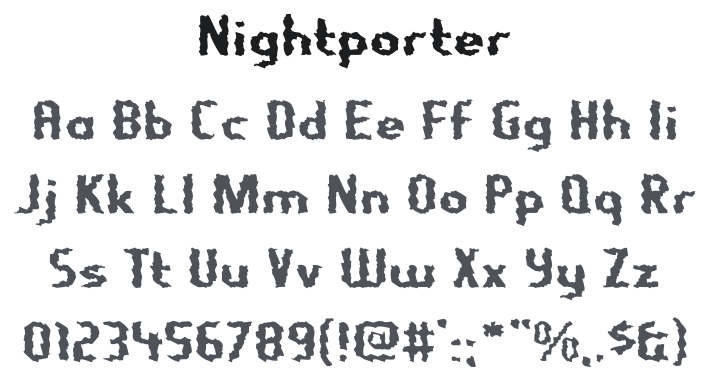
Nightporter Font
About Nightporter
Nightporter is a bold, heavily distressed serif typeface where every letterform appears eaten away and crumbling — edges dissolve into rough, gnawed fragments as if decaying in a damp cellar. Despite the damage, underlying serif proportions keep it readable. Perfect for horror titles, gothic branding, haunted house designs, occult-themed posters, and any headline needing a genuinely phantasmal, unsettling atmosphere.